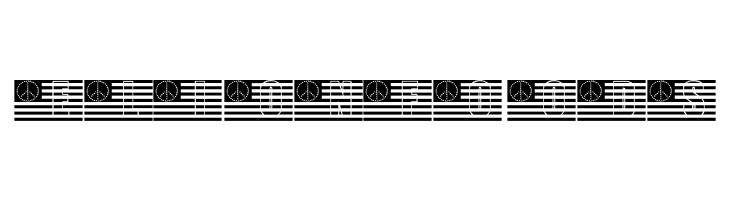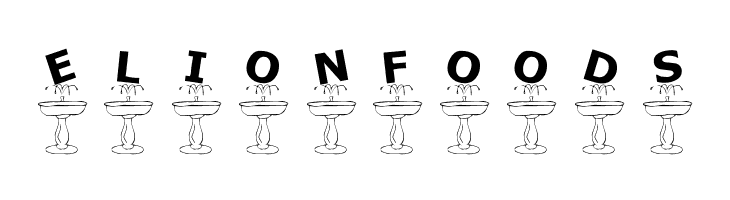
A whimsical font with bold letters and a bunny illustration beside each character.
A decorative design using peace symbols in a flag motif.
A decorative font featuring St. Patrick's Day-themed icons and illustrations.
A decorative font with camping-themed icons.
A collection of hunting-themed illustrations replacing traditional characters.
A decorative font with bold letters and whimsical frog illustrations.
A decorative font with New Year-themed illustrations for festive designs.
A decorative font featuring whimsical illustrations for each character.
A playful set of cartoon character illustrations in circular frames.
A whimsical and decorative font with characters atop fountain bases, offering a playful and artistic style.